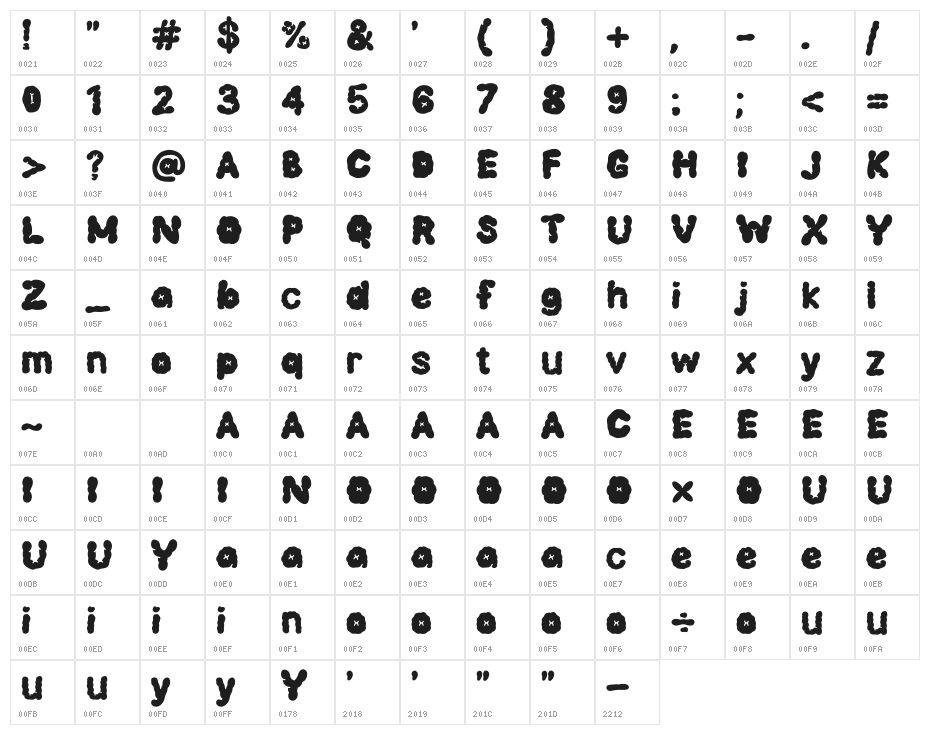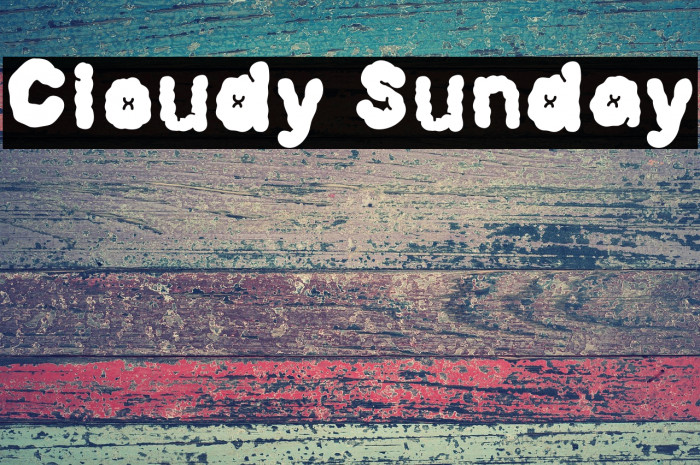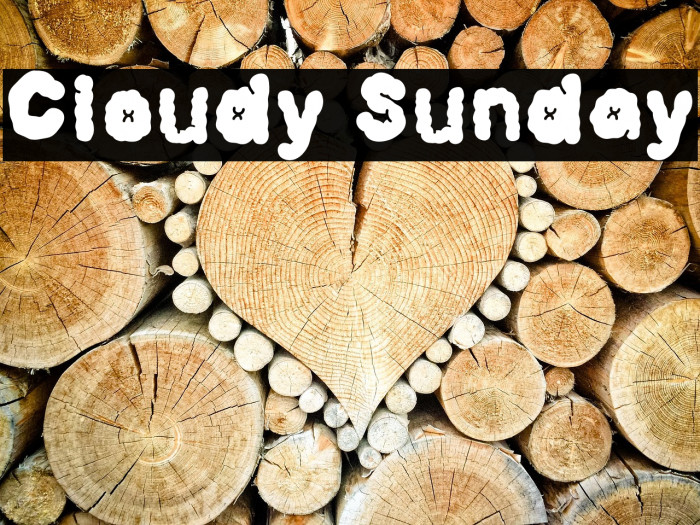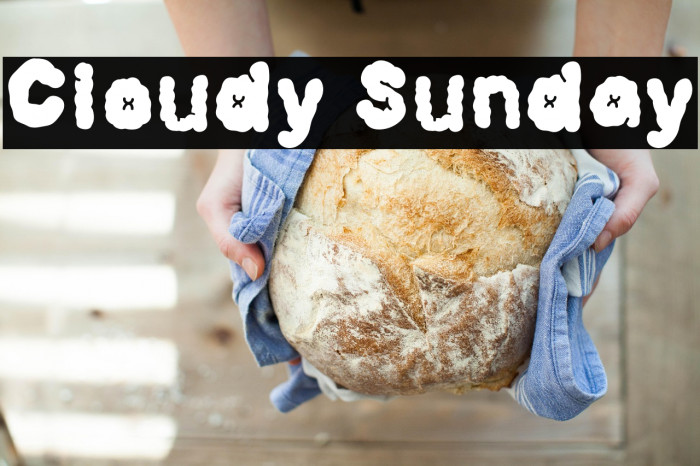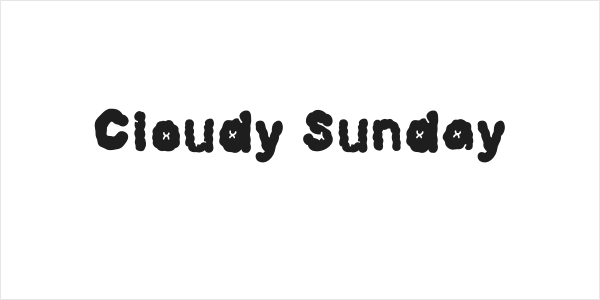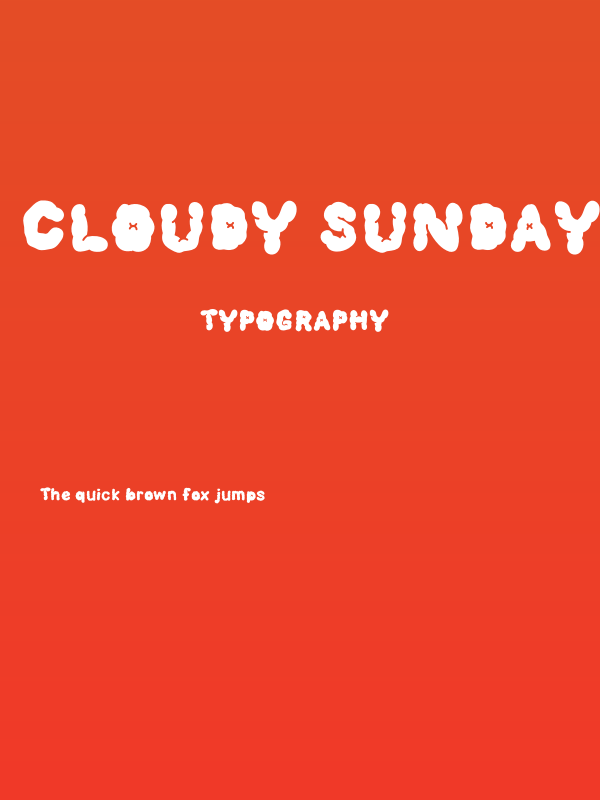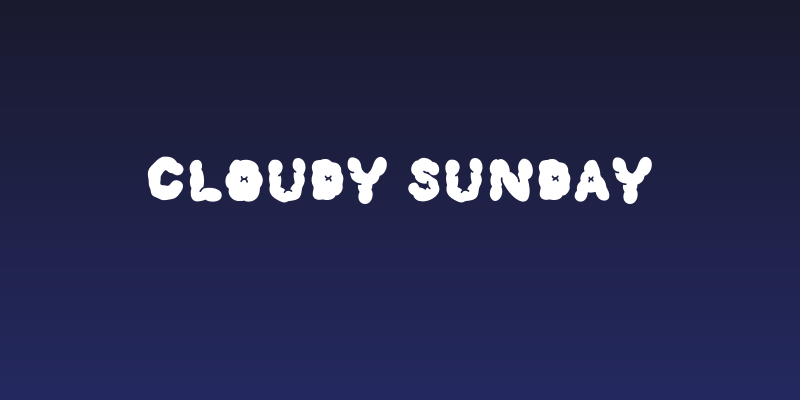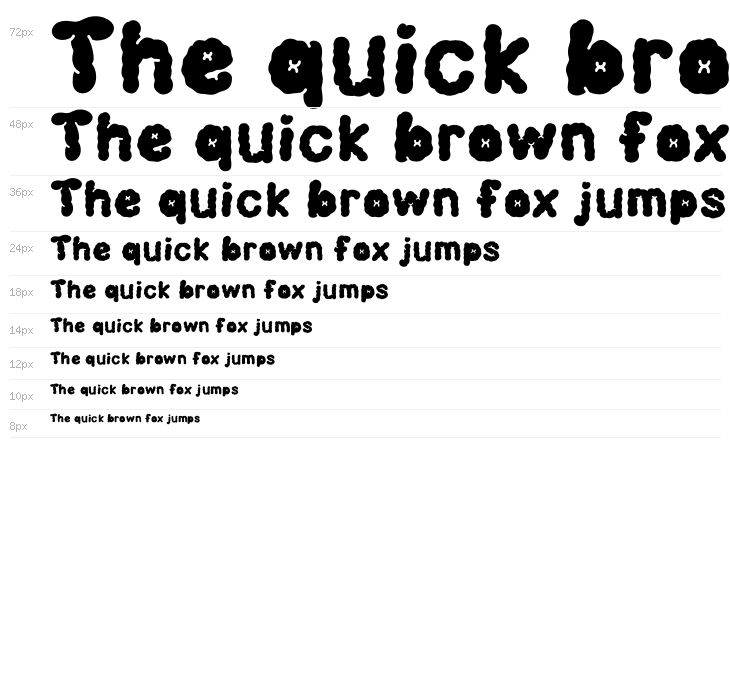
Cloudy Sunday Font
Cloudy Sunday Description
This playful and whimsical font features a bubbly, cloud-like appearance with rounded edges and a bold presence. The characters are designed with a unique, organic flow, giving them a soft and approachable feel. The font maintains a consistent thickness throughout, with minimal contrast in stroke width, enhancing its casual and friendly vibe. Its distinctive style makes it stand out, perfect for projects that require a touch of fun and creativity. The font includes a full set of uppercase and lowercase letters, numbers, and a variety of special characters, ensuring versatility for different design needs.